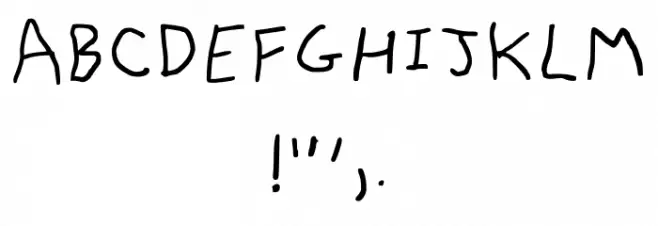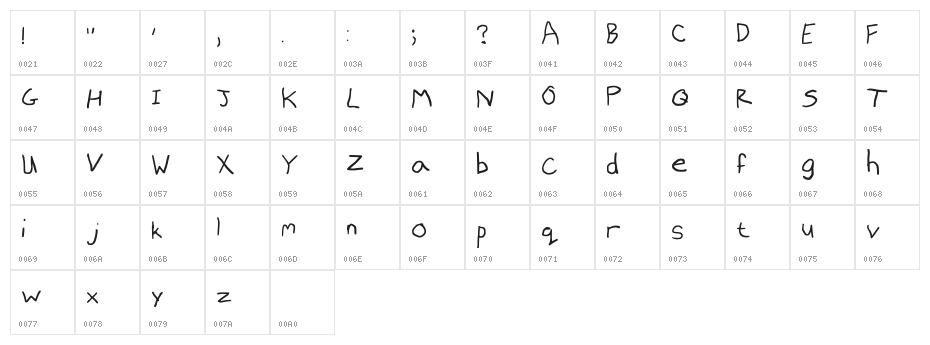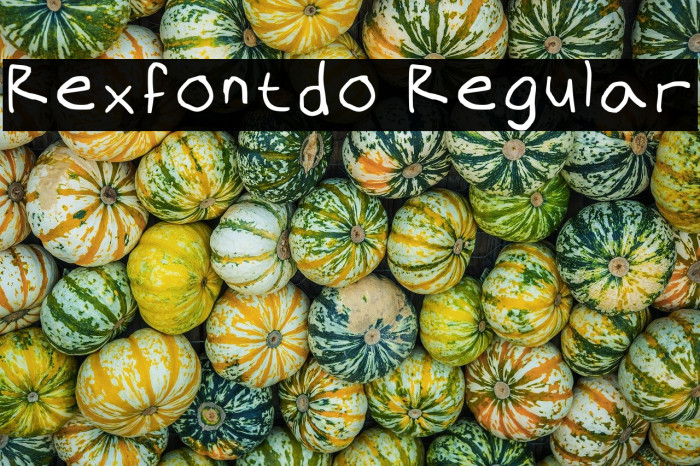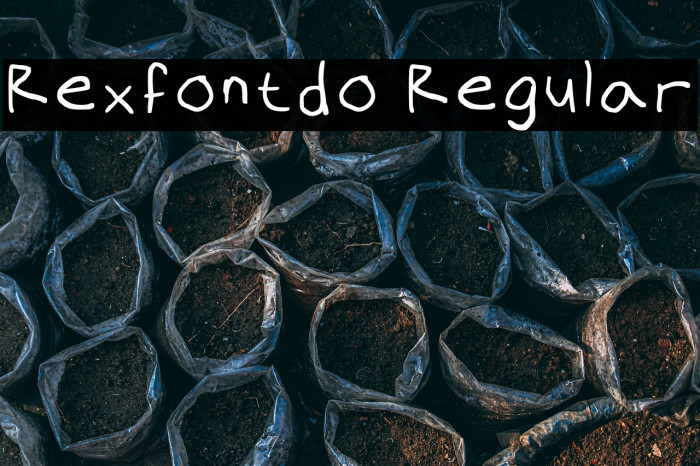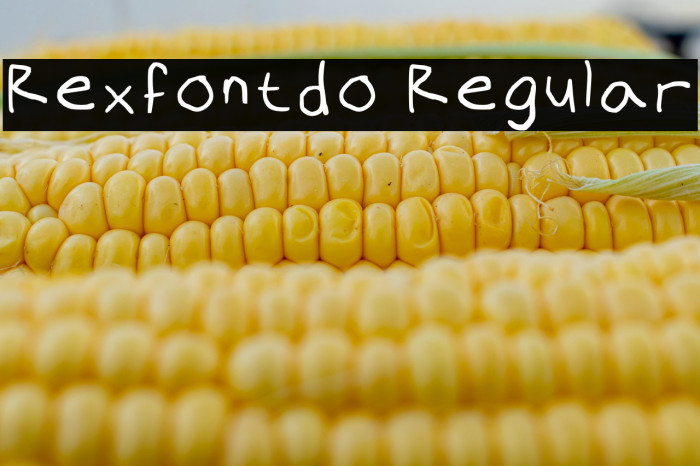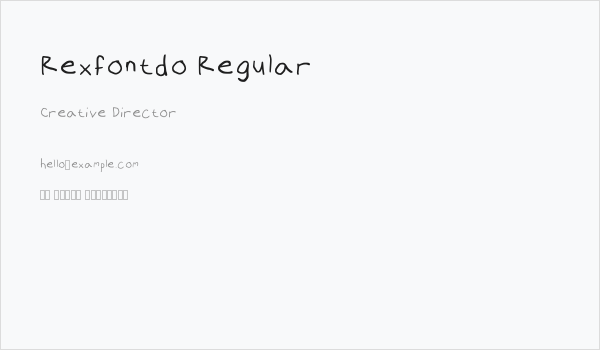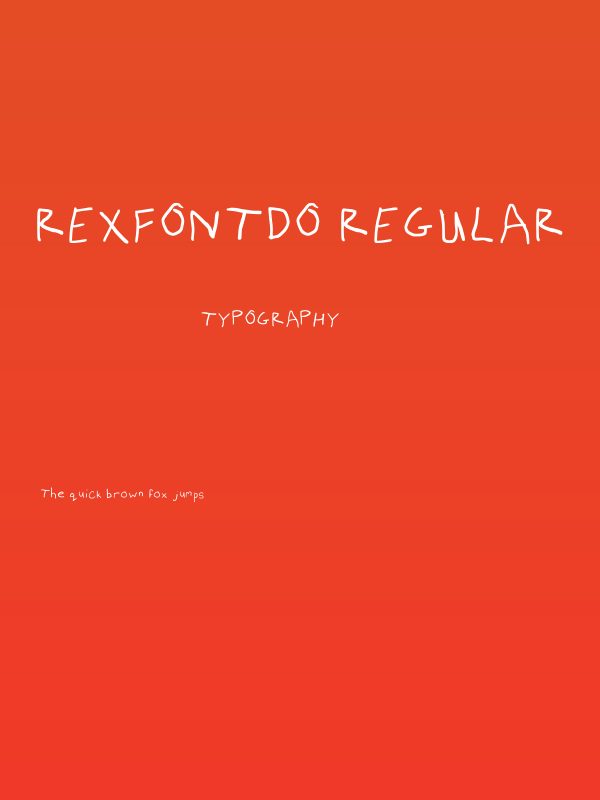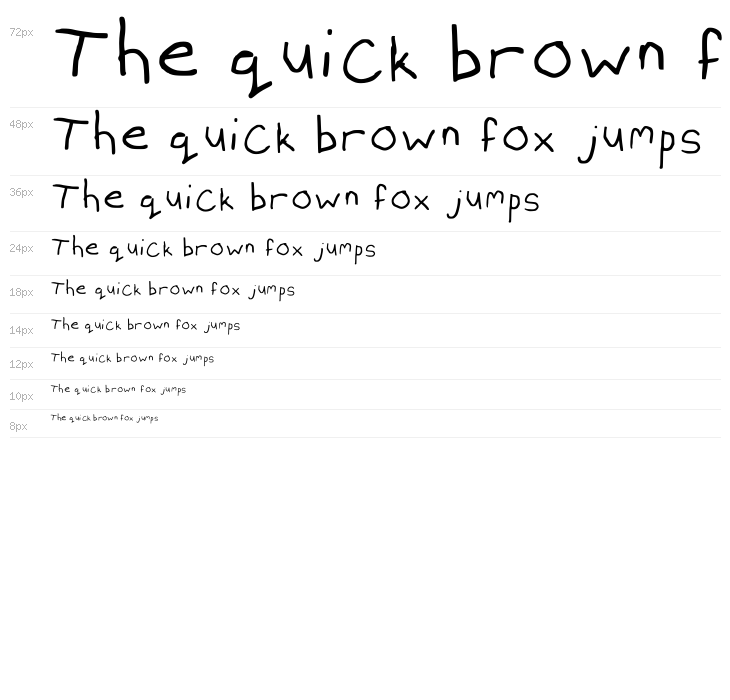
Rexfontdo Regular Font
Rexfontdo Regular Description
This font features a playful and casual handwritten style, characterized by its irregular and slightly uneven strokes. The letters exhibit a natural flow, giving it a personal and informal touch. The uppercase and lowercase letters maintain a consistent style, with a slight tilt and varied stroke thickness that adds to its charm. The numbers and special characters follow the same whimsical design, making it suitable for creative and informal projects.
| Use Case | Logos, Invitations, Personal notes |
| Proposed Projects | Ideal for greeting cards, children's books, personal notes, and creative projects that require a friendly and informal touch. |